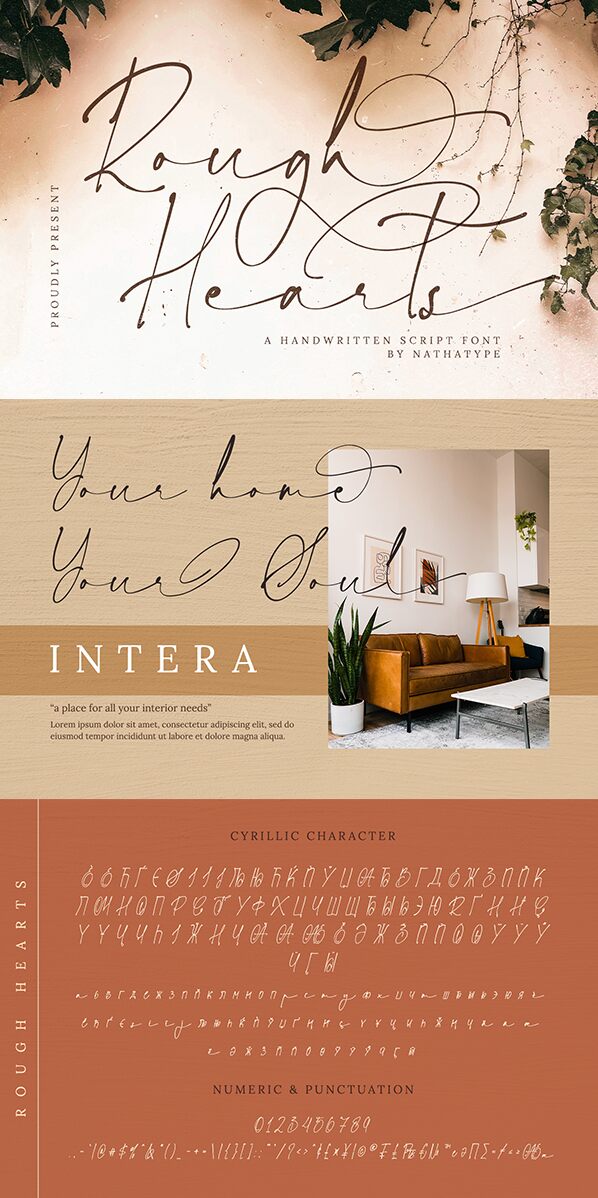
Rough Hearts font by Nathatype is a free handwritten font with a quite spontaneous, elegant look and a consistent light weight. Fonts of this kind have that flowing, personal touch and an artistic flair where distinguishable thick-light line variations add extra expressiveness and charm while maintaining the readability. Though not leaning towards script (cursive) style, Rough Hearts still has an obvious romantic feel.
The use cases for Rough Hearts include anything where you’d like to communicate a message in a personal handwriting style: post-card design, party invitations, product packaging ideas (like perfumes), branding projects or visual identity for restaurants or cafes. Non-commercial advertisers would also find their way with this font that allows adding creative slogans on billboards or flyers.
Features:
- Alternates
- Ligatures
- Stylistic Sets
- Multilingual Supports
- PUA Encoded
- Numerals and Punctuations